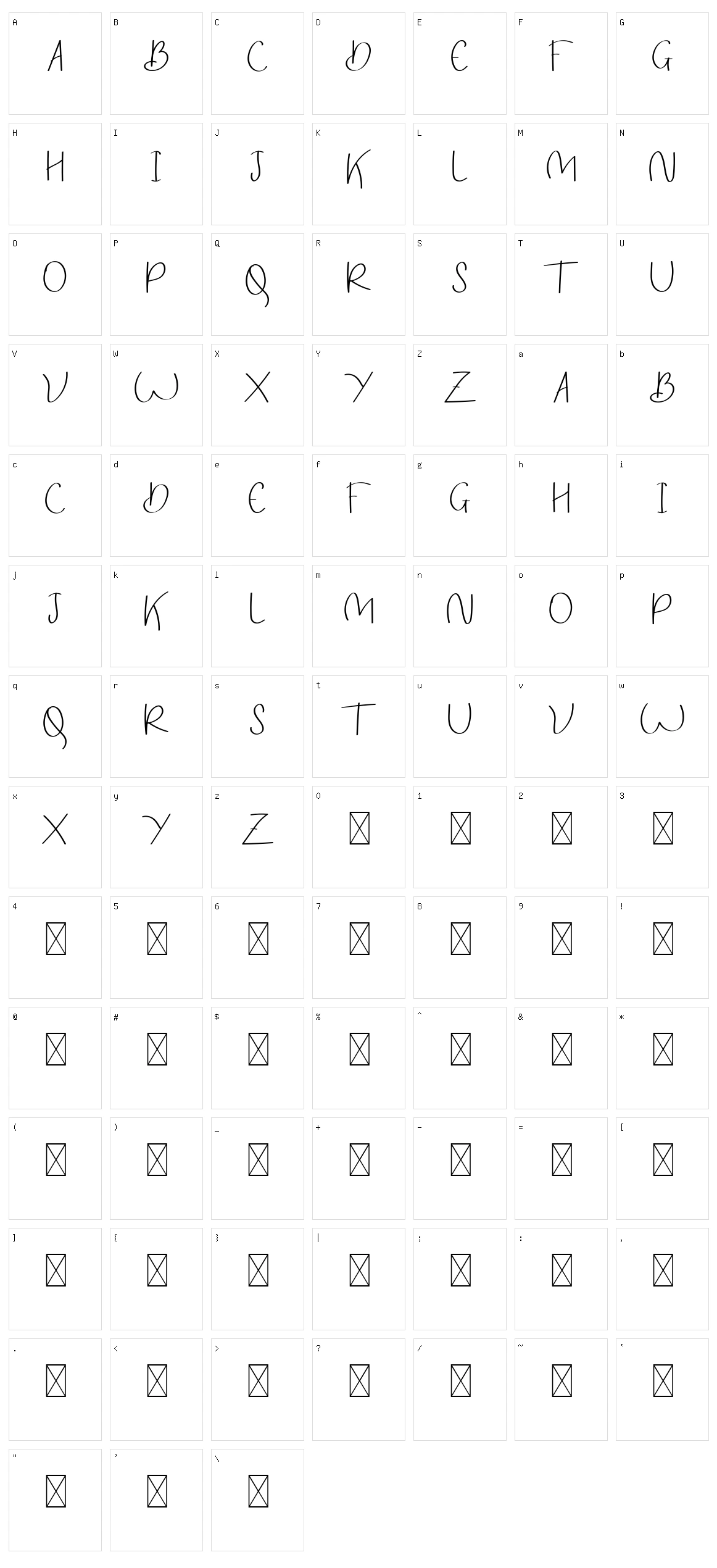
The free font Breezy Bolton Sans is carefully designed by Edric Studio, showcasing a thoughtful balance of creativity and usability and falls under the Script font style. When you download the ZIP file, it contains only 12.9 KB of font files, making it lightweight and quick to download. Please review the license details below to understand permitted usage and distribution rights. If license information is not available, we recommend using this font for personal projects only or contacting the author directly for commercial usage permissions.